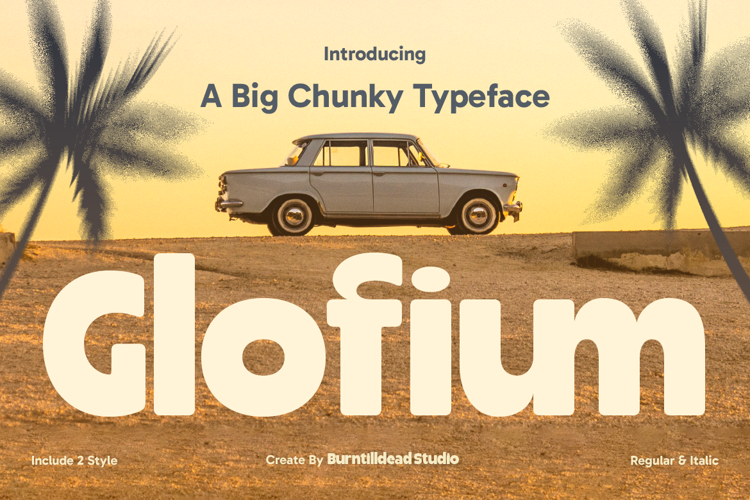
Glofium Font
Big, chunky, and fun! Glofium is a bold sans serif font with Regular & Italic styles—perfect for headlines, branding, and creative projects.